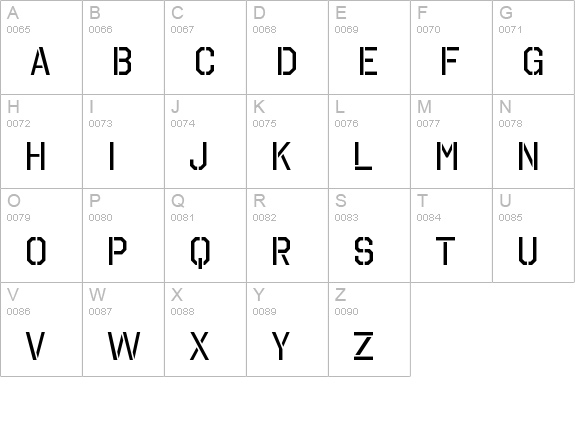
Octin Stencil Free Font Details
Octin Stencil Free font is a bold and eye-catching typeface that exudes strength and modernity. Perfect for creating impactful headlines, posters, and branding materials, this font features clean lines and a stencil design that gives it a distinctive look. The sharp edges and geometric shapes of Octin Stencil Free make it a versatile choice for a variety of design projects. What sets Octin Stencil Free apart is that it is available for free download at FontsMarket.com. This means that you can easily access and use this stylish font without any cost, making it a valuable addition to your font collection. Whether you're a designer looking for a dynamic typeface or a creative individual wanting to make a statement with your text, Octin Stencil Free is a fantastic option that combines visual impact with accessibility.